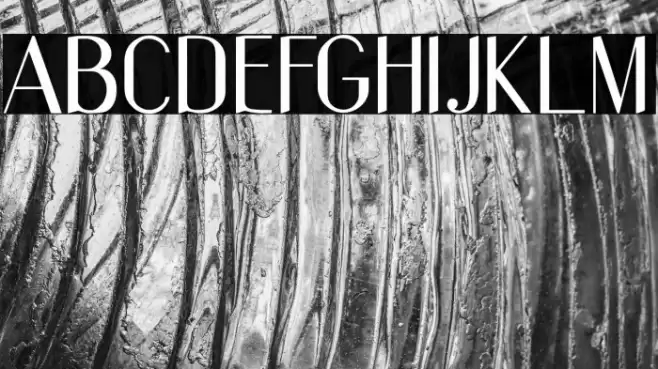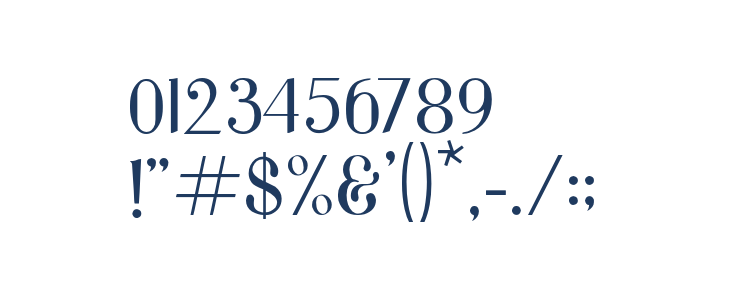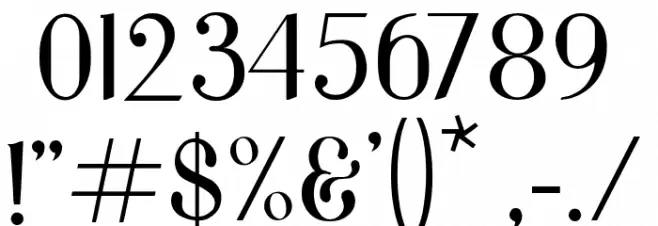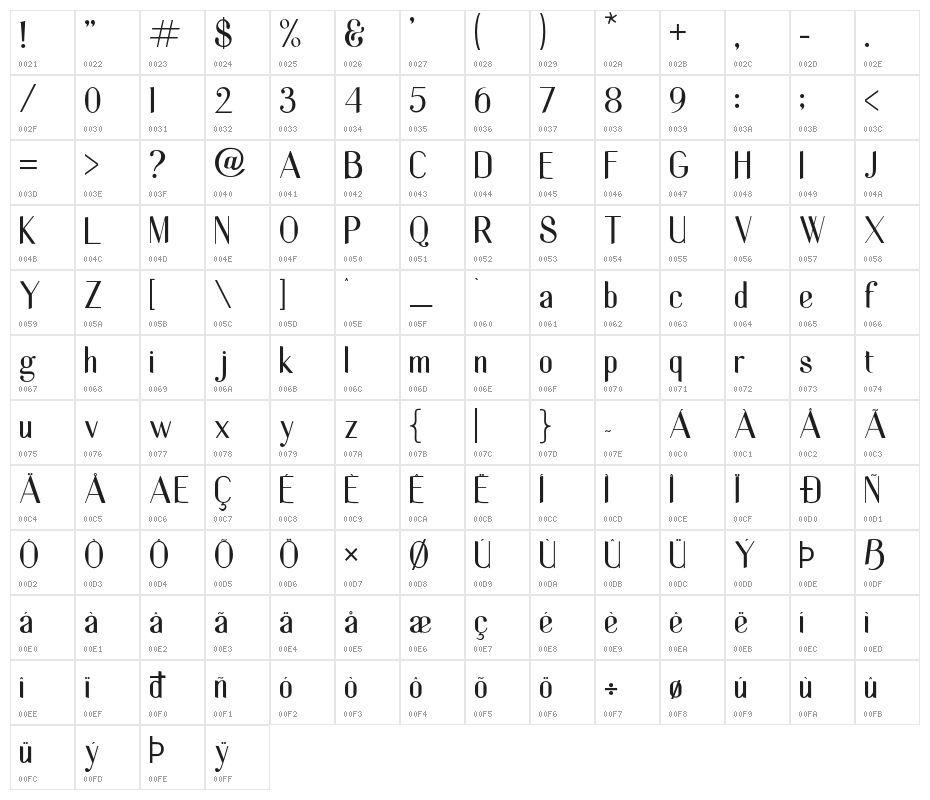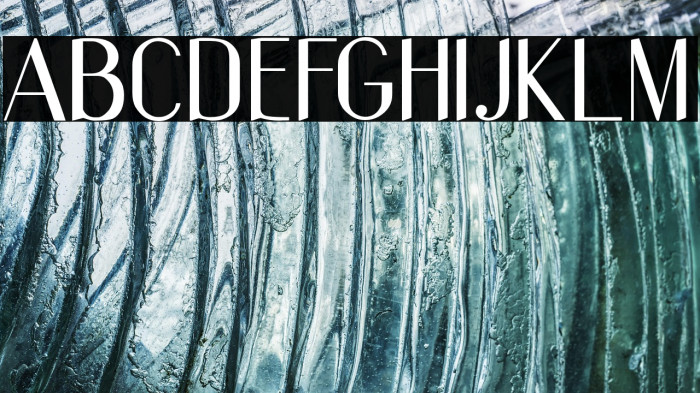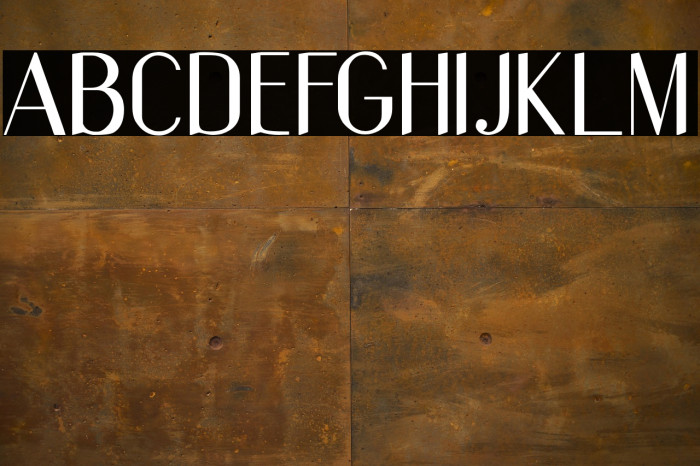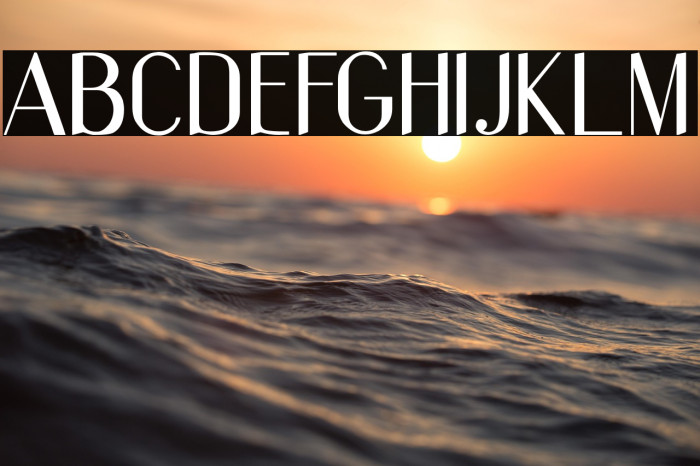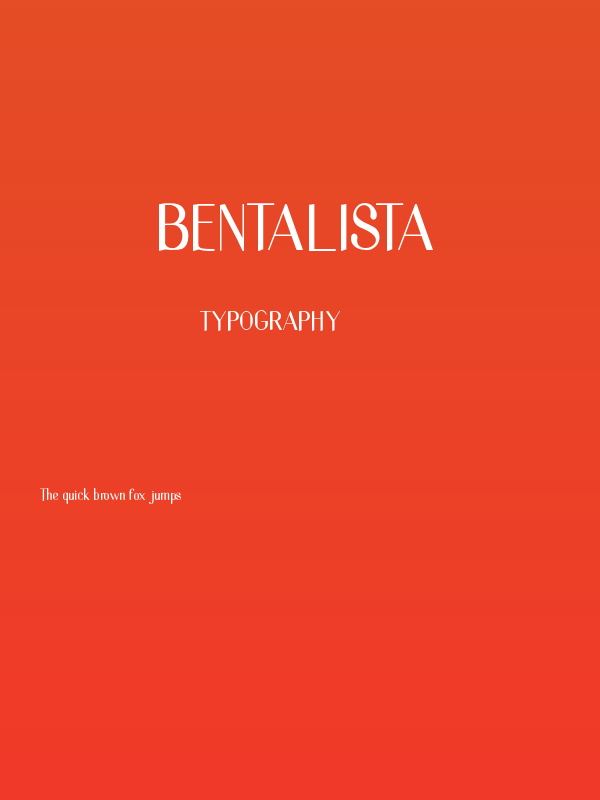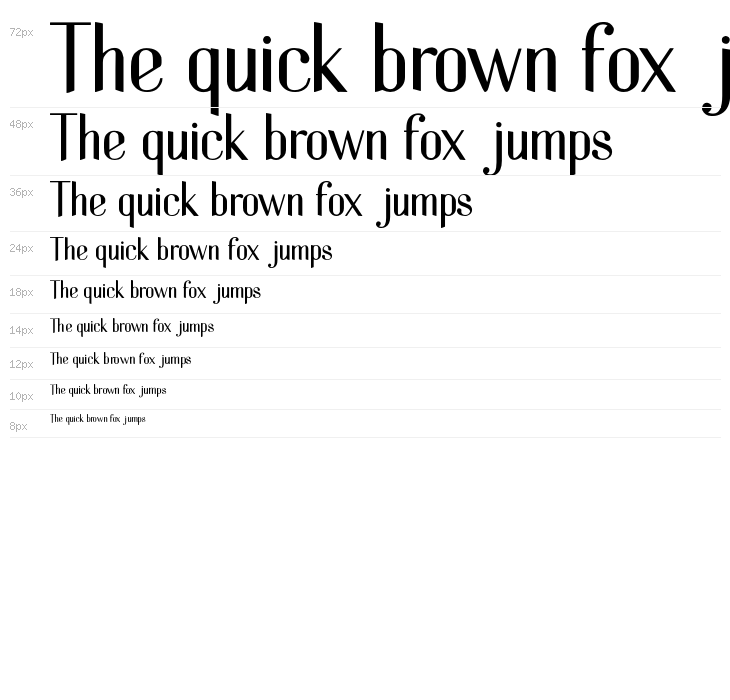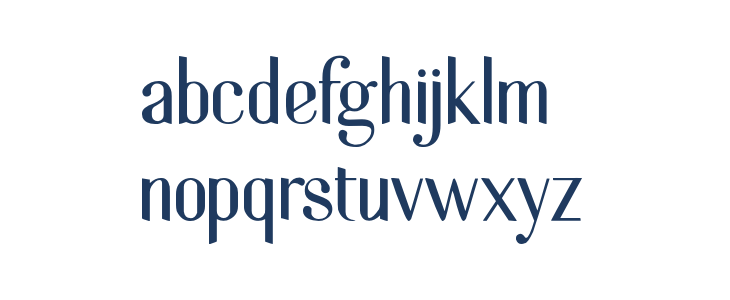
Bentalista Font
Bentalista Description
This font features a unique blend of modern and classic elements, characterized by its tall, narrow letterforms and subtle serifs. The uppercase letters are particularly elongated, giving a sense of elegance and sophistication. The lowercase letters maintain a consistent style with a slightly more rounded appearance, adding a touch of softness. The numerals are distinct and easy to read, with a slight curvature that complements the overall design. Special characters are well-integrated, maintaining the font's cohesive look. The font's high contrast between thick and thin strokes enhances its readability and visual appeal, making it suitable for a variety of design applications.
A modern, elegant font with tall, narrow letterforms and subtle serifs from Uncategorized fonts.
- Proposed Projects: Ideal for branding, editorial design, and high-end product packaging.